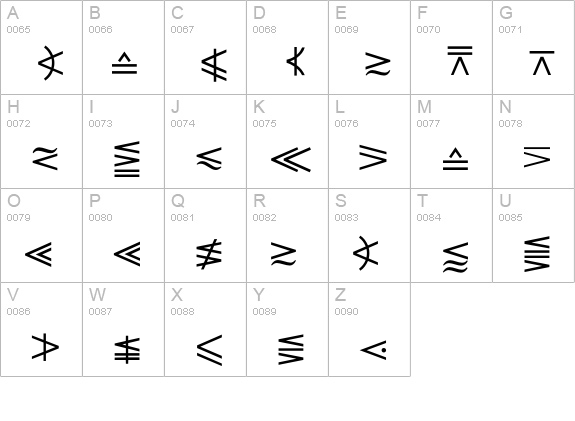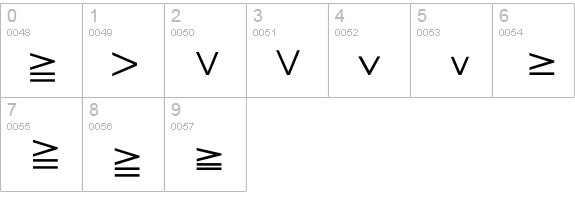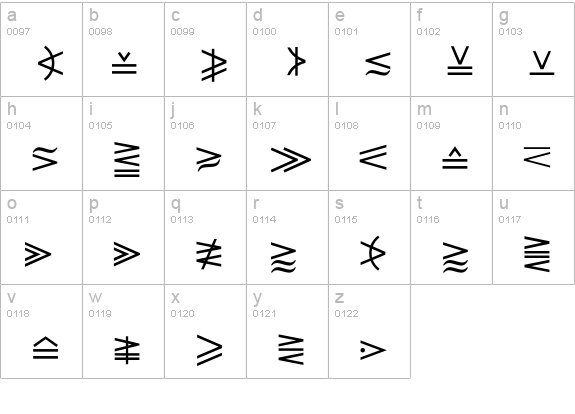
MathTechnicalP01 Font Details
Introducing MathTechnicalP01, a versatile and modern font that is perfect for all your mathematical and technical needs. This sleek and professional typeface is designed with precision and clarity in mind, making it an ideal choice for textbooks, scientific papers, engineering reports, and more. MathTechnicalP01 boasts a clean and streamlined appearance, with well-defined lines and sharp angles that enhance legibility and ensure optimal readability. Its balanced letterforms and consistent spacing make it easy on the eyes, allowing readers to effortlessly navigate complex mathematical equations and technical terminology. What sets MathTechnicalP01 apart is its remarkable versatility. Its extensive character set includes a wide range of mathematical symbols, Greek letters, and special characters, enabling you to express even the most intricate mathematical concepts with ease. Whether you're a mathematician, physicist, or engineer, this font will effortlessly complement your work and elevate it to new heights. But here's the best part - MathTechnicalP01 is available for free! That's right, you can easily download this exceptional font at FontsMarket.com, a trusted source for high-quality fonts. Don't miss out on this incredible opportunity to enhance your mathematical and technical documents with a font that is both visually appealing and functional. So why wait? Unlock the full potential of your mathematical and technical projects with MathTechnicalP01. Download it today for free at FontsMarket.com and experience the difference it can make in your work.